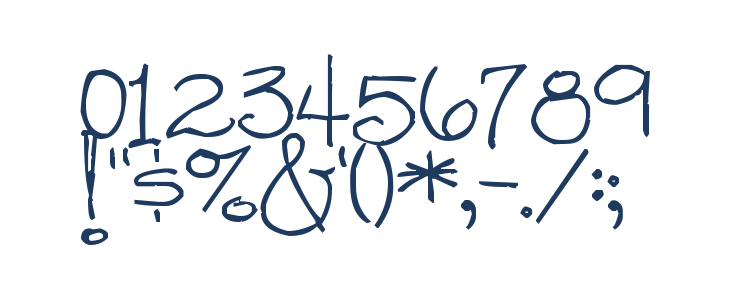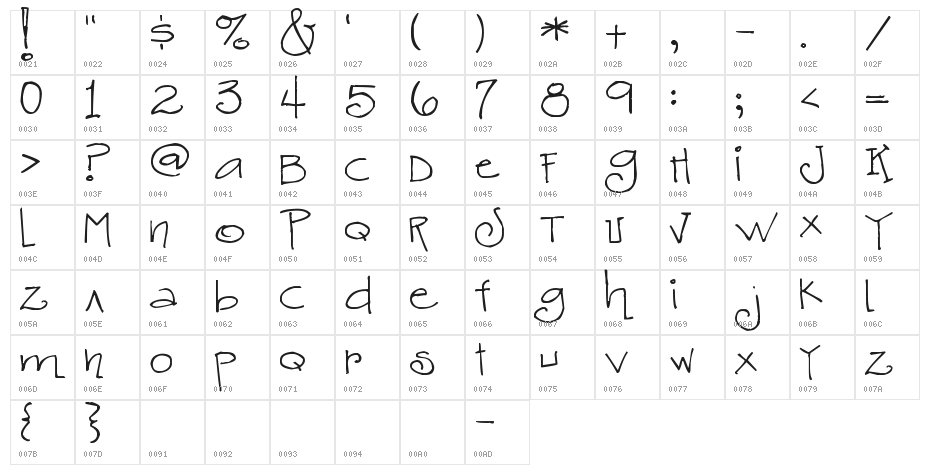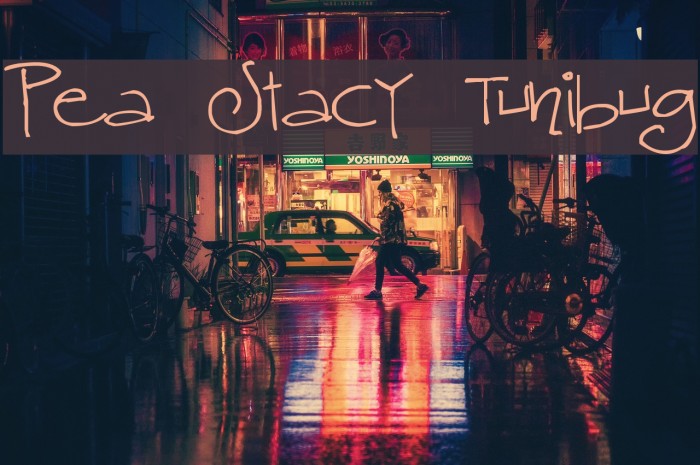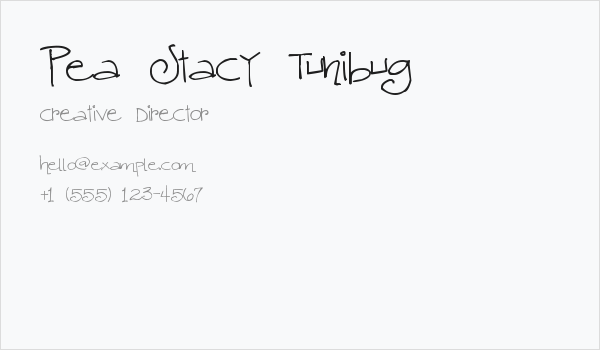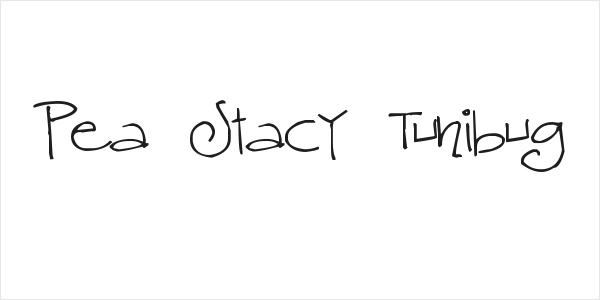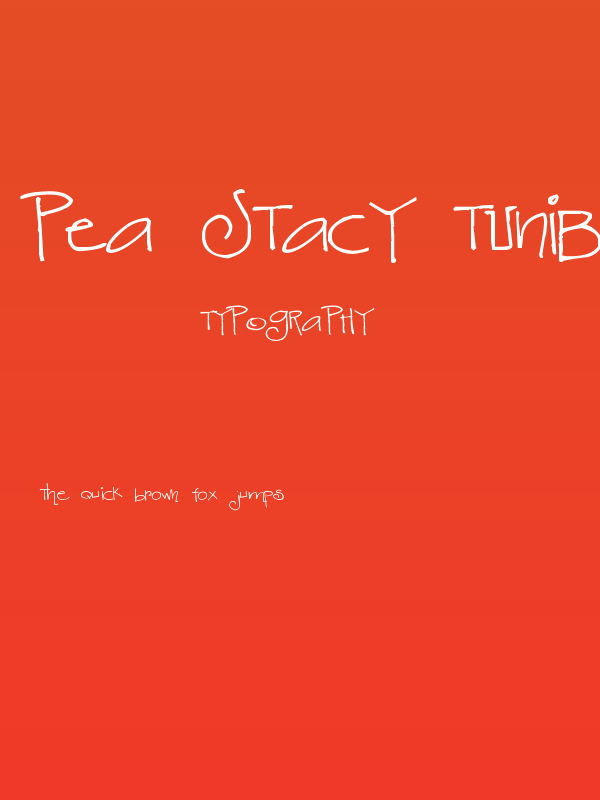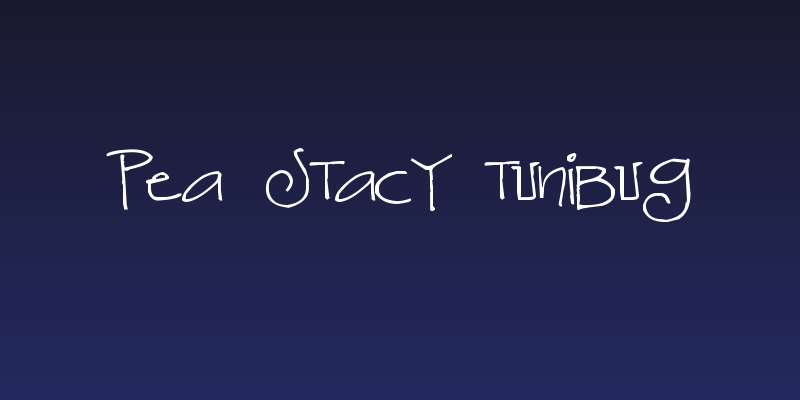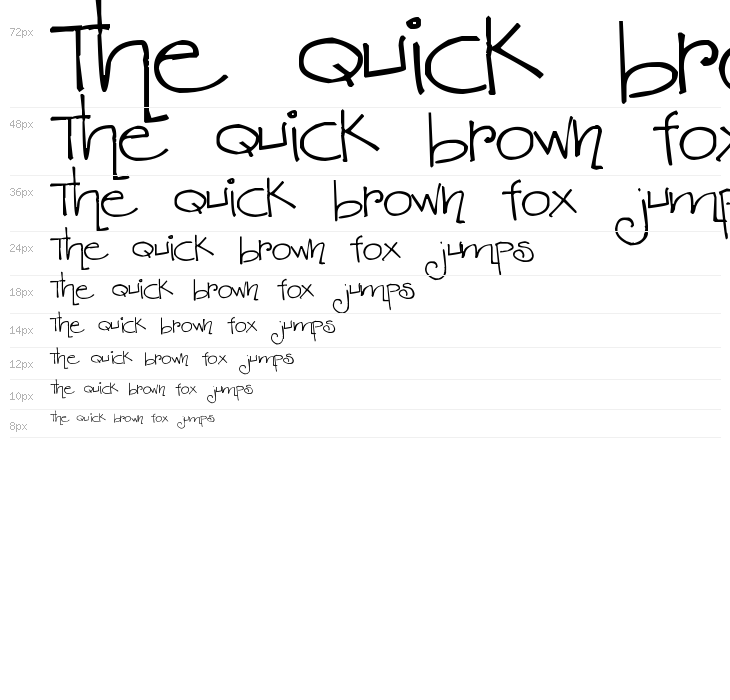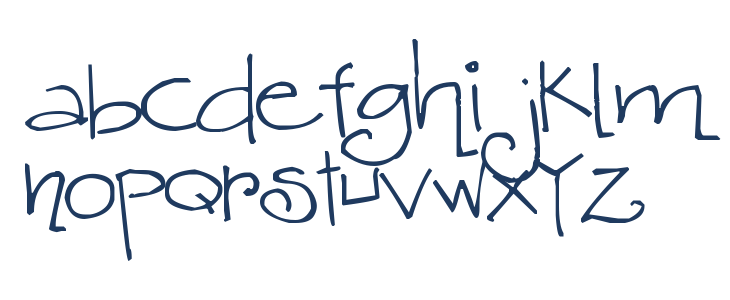
Pea Stacy Tunibug Font
Pea Stacy Tunibug Description
This font exudes a playful and whimsical charm, characterized by its hand-drawn, casual style. The letters are slightly irregular, with a lively and spontaneous appearance that suggests a personal touch. The strokes are uneven, adding to the font's informal and friendly vibe. The uppercase and lowercase letters maintain a consistent style, with some characters featuring unique loops and curls that enhance the font's quirky personality. The numbers and special characters follow the same playful design, making this font suitable for creative and informal projects.
Use CaseHeadlines, Logos, Informal Text
Proposed ProjectsIdeal for children's books, greeting cards, playful branding, and DIY craft projects.